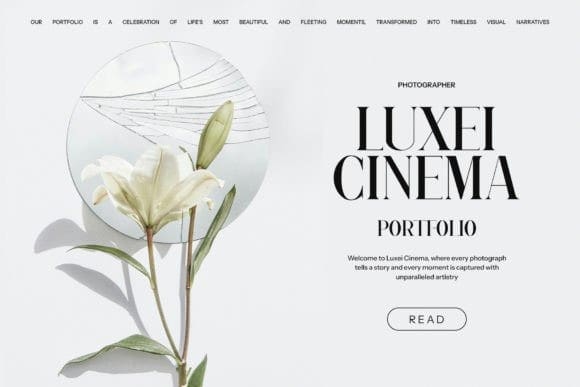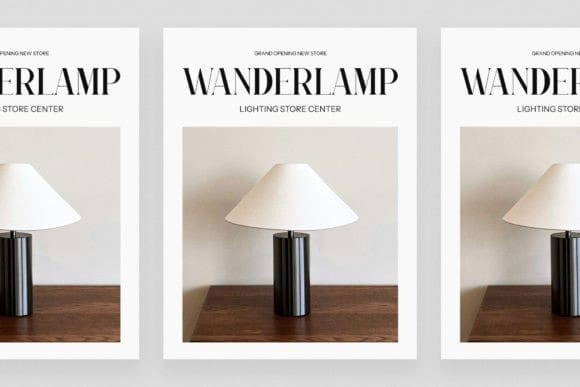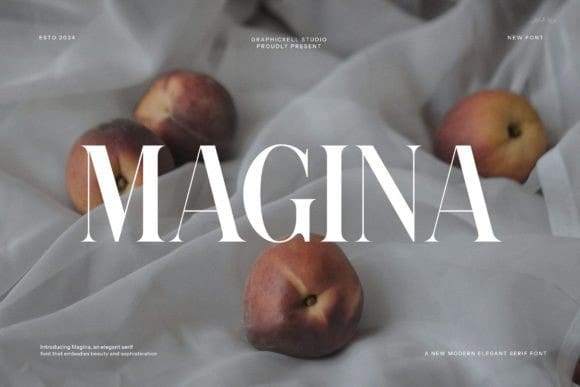
Magina Font
Magina Font is perfect for elevating your brand identity and logo designs. Blending an elegant serif typeface with a modern twist, this font caters to a wide array of creative needs. From building brand image, and designing breathtaking logos, and social media posts, to crafting visually appealing advertisements, this font helps your designs stand out.